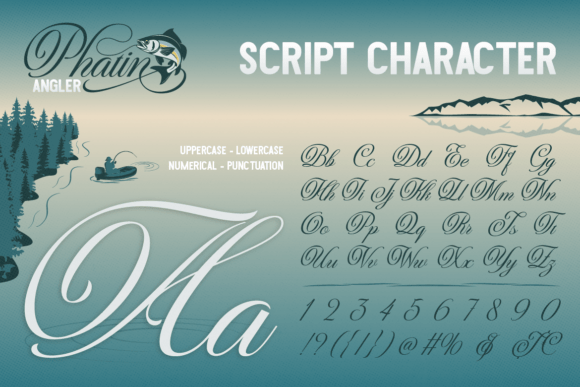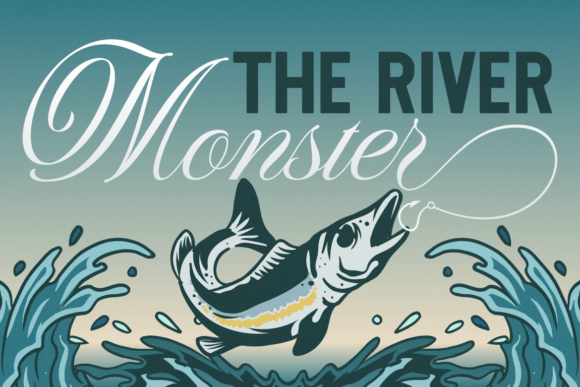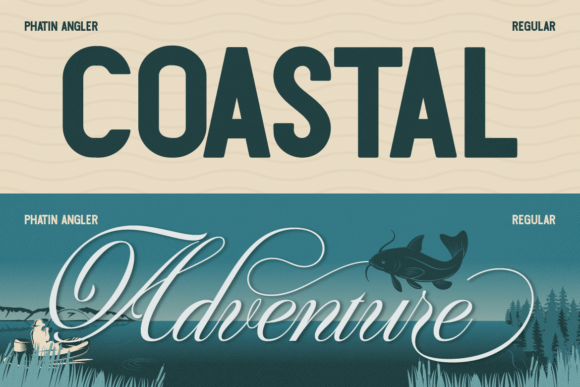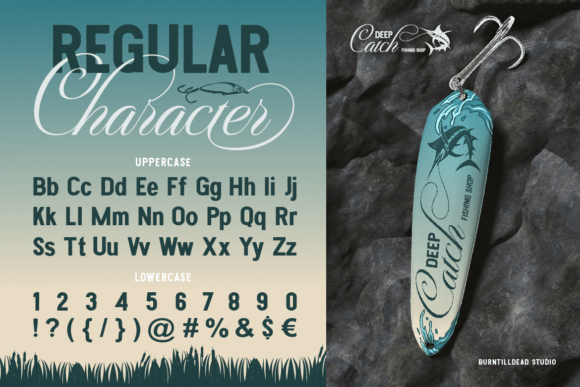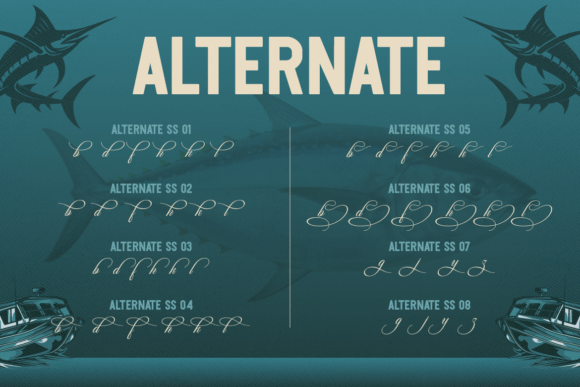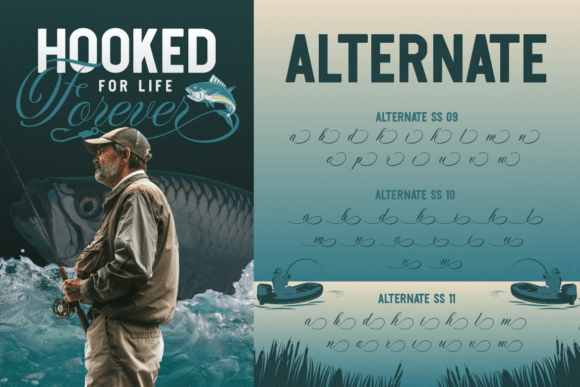
Introduction to Phatin Angler Font
Hook your audience’s attention with Phatin Angler, a premium font duo designed specifically for the great outdoors, marine branding, and adventure enthusiasts.
This perfectly paired set combines a classic, elegant script with a clean, solid sans-serif companion, giving you the ultimate versatility to create balanced, professional layouts instantly The showstopper is the dynamic script typography, featuring graceful, swooping swashes that fluidly mimic a looping fishing line.
Key Features of Phatin Angler Font